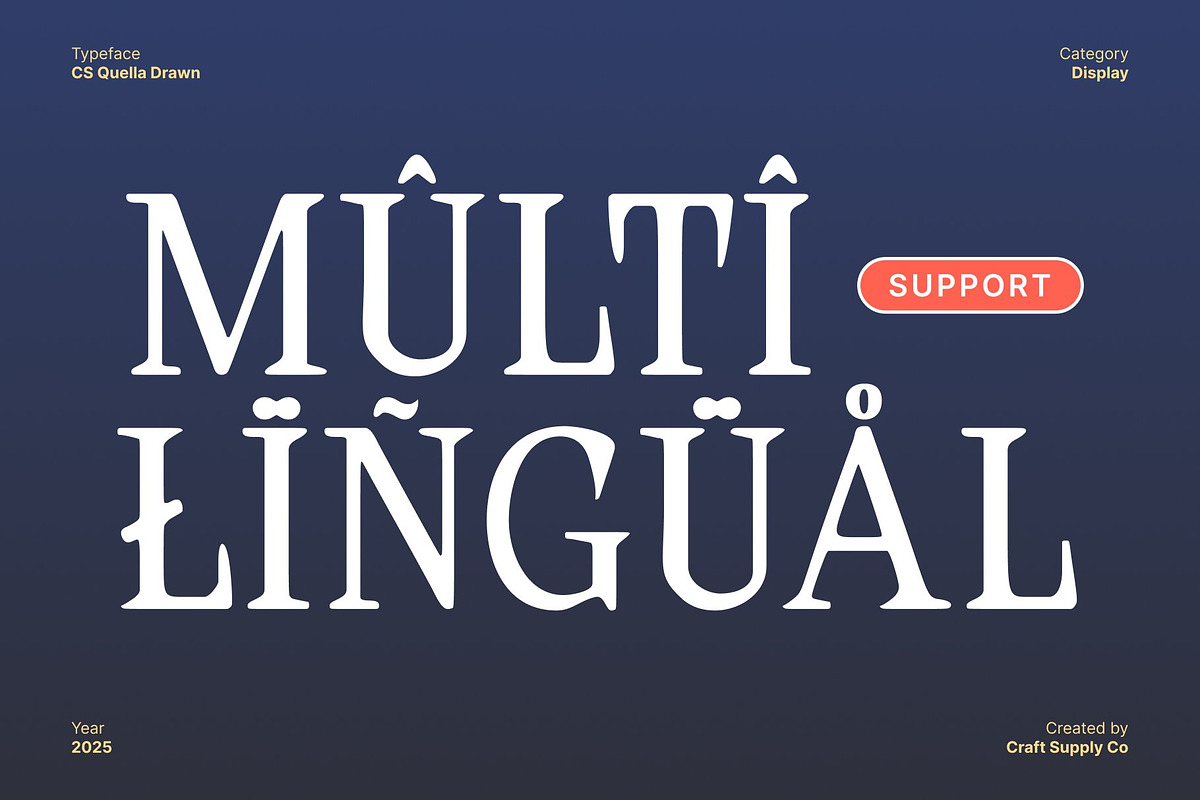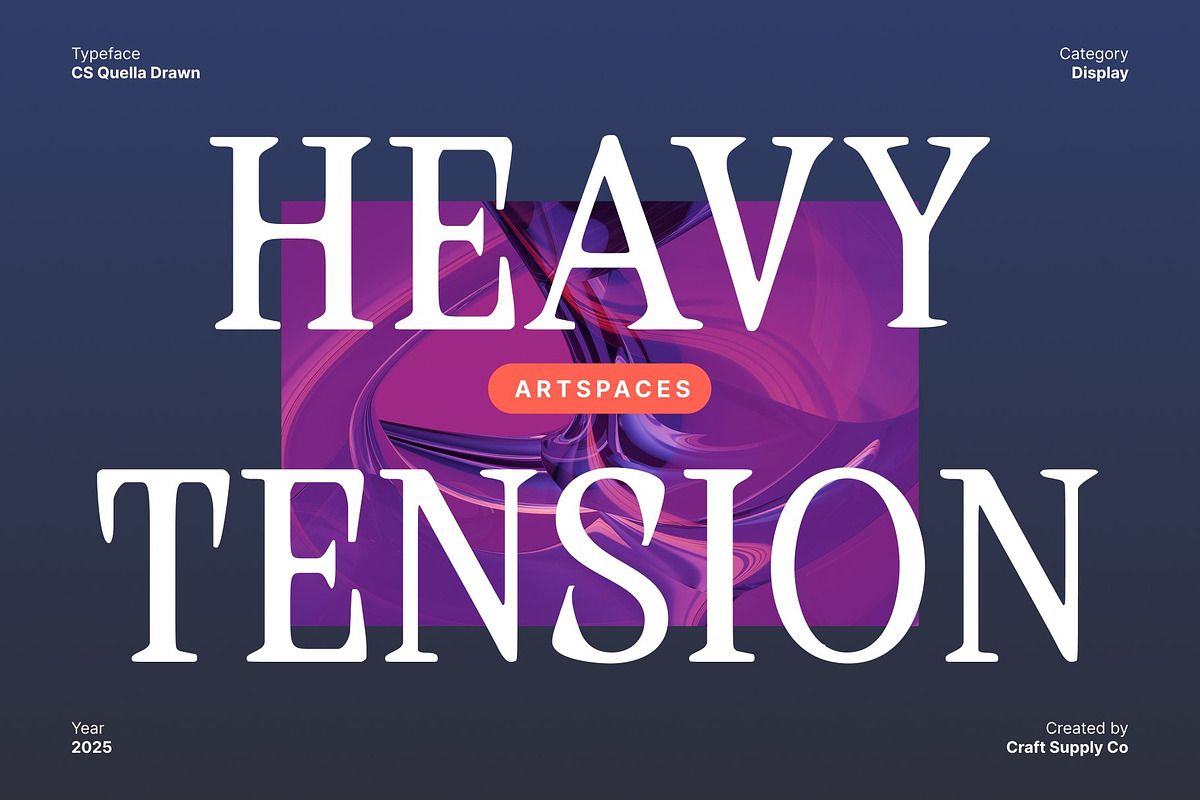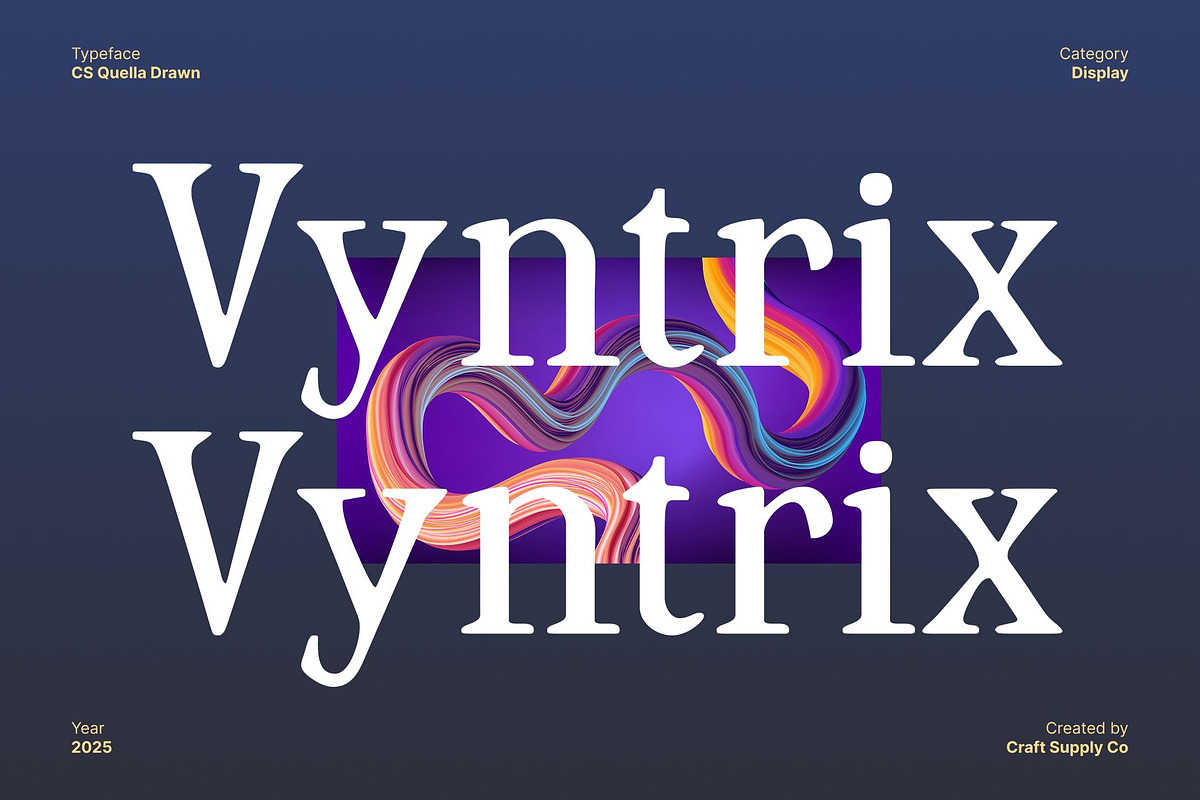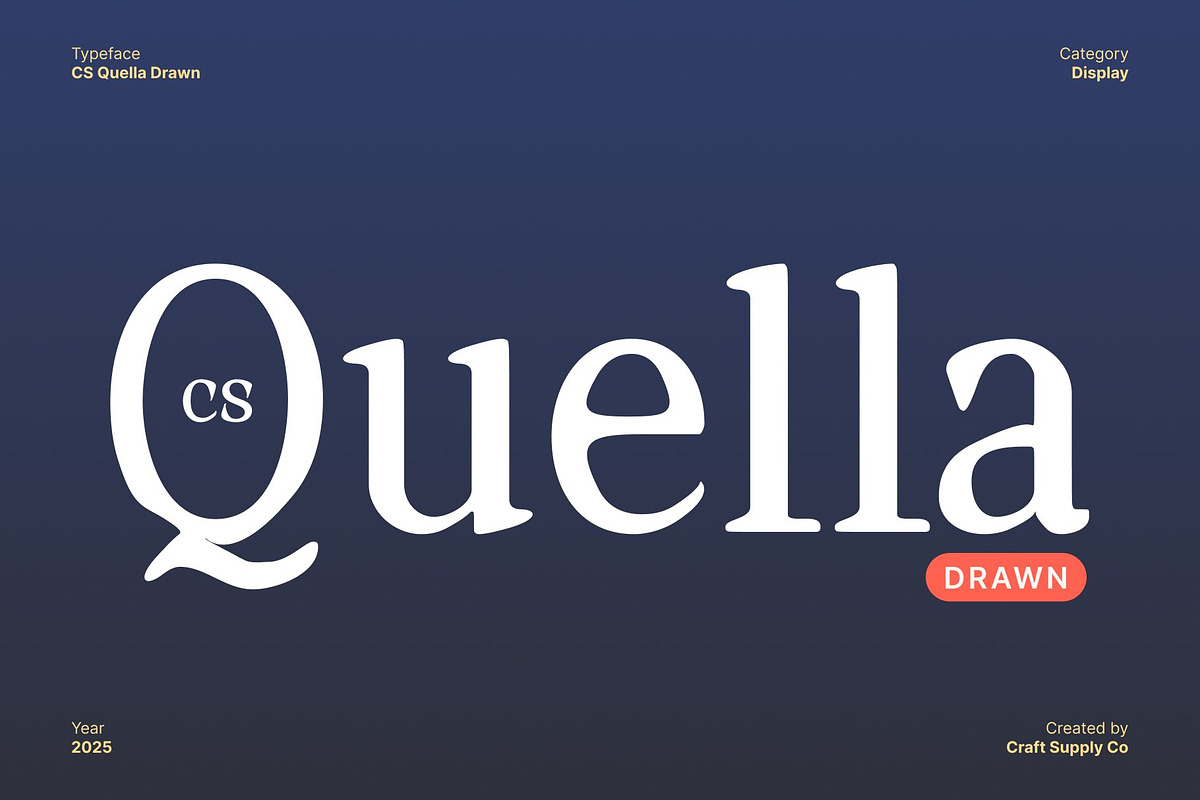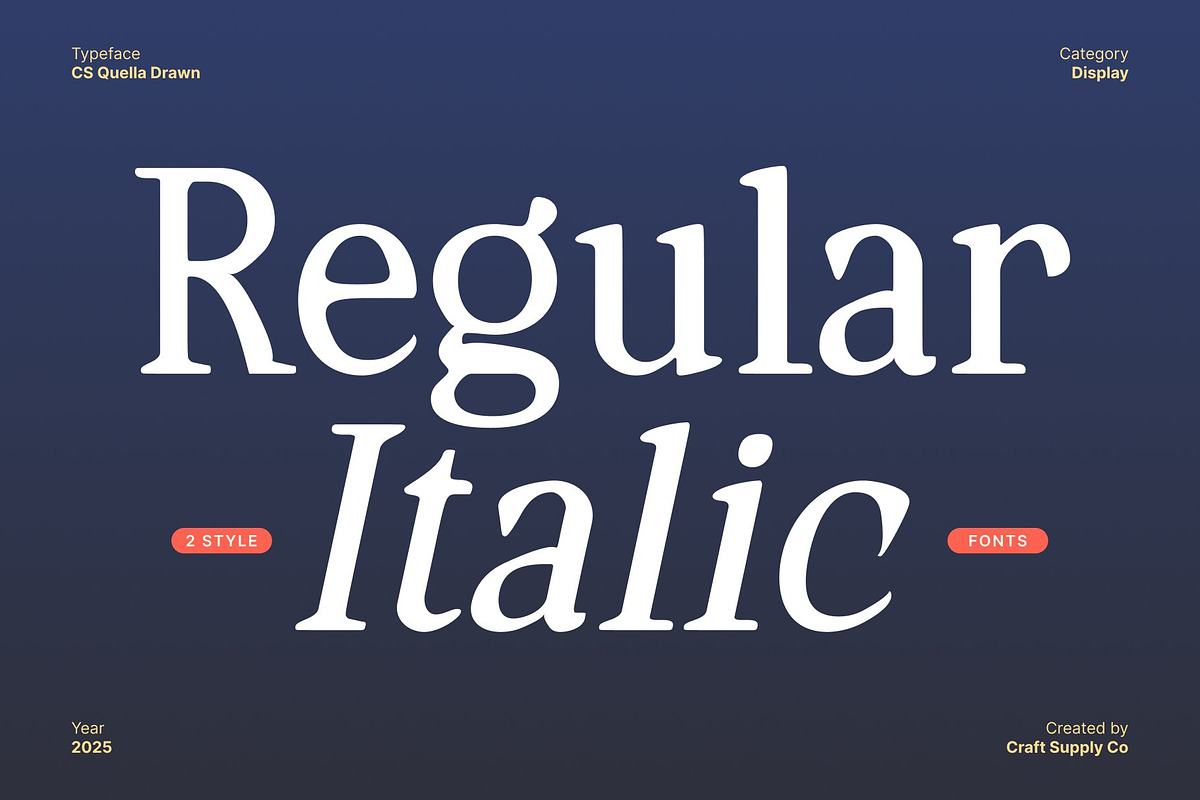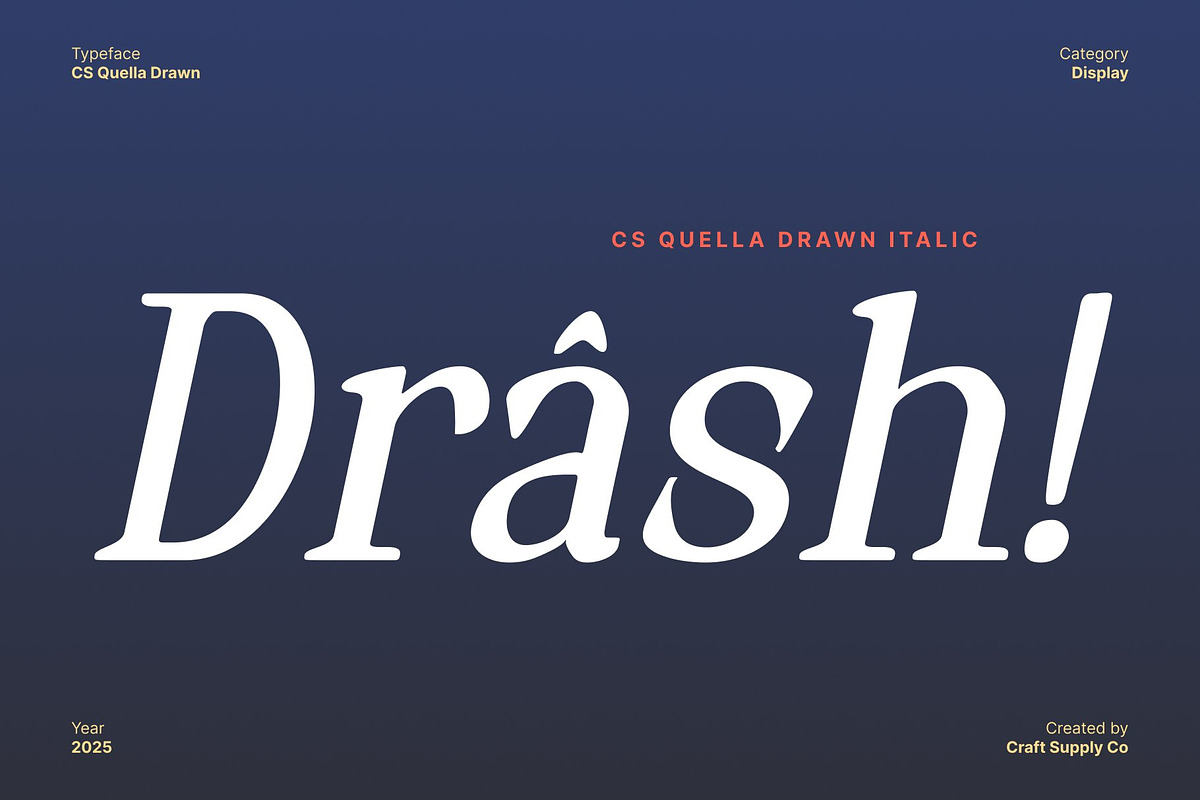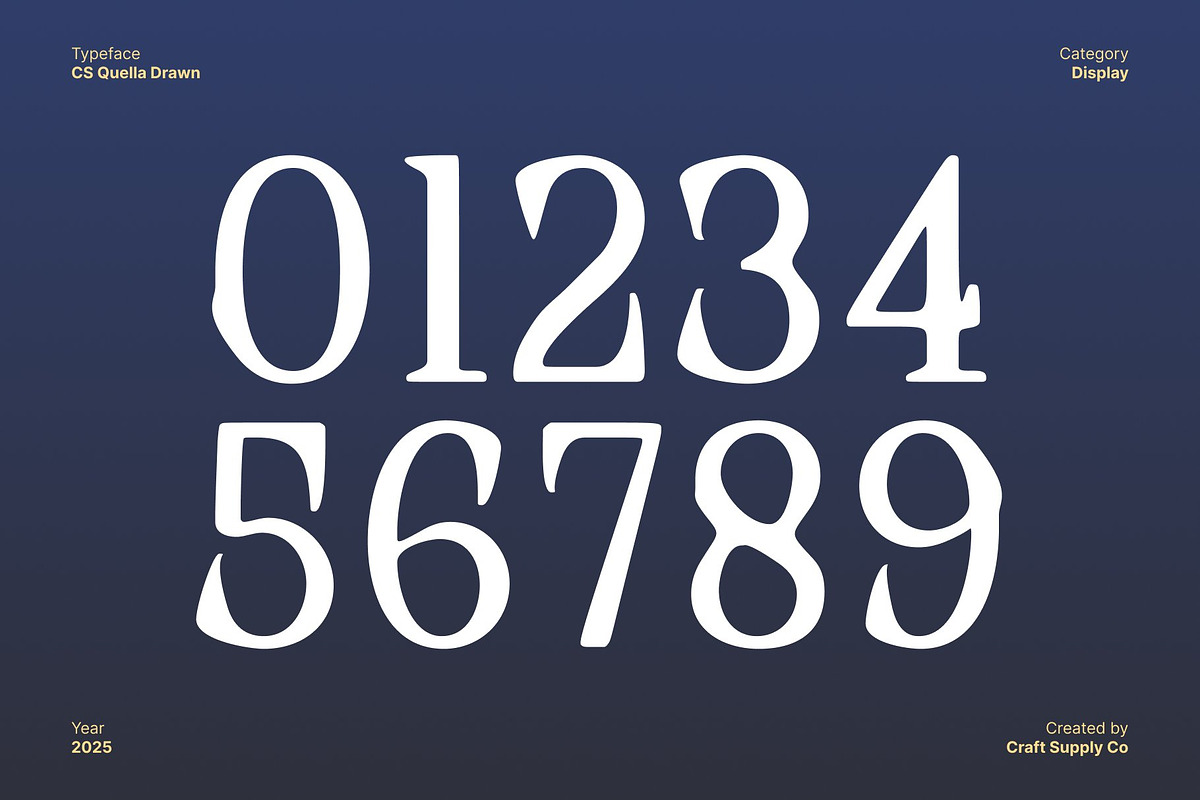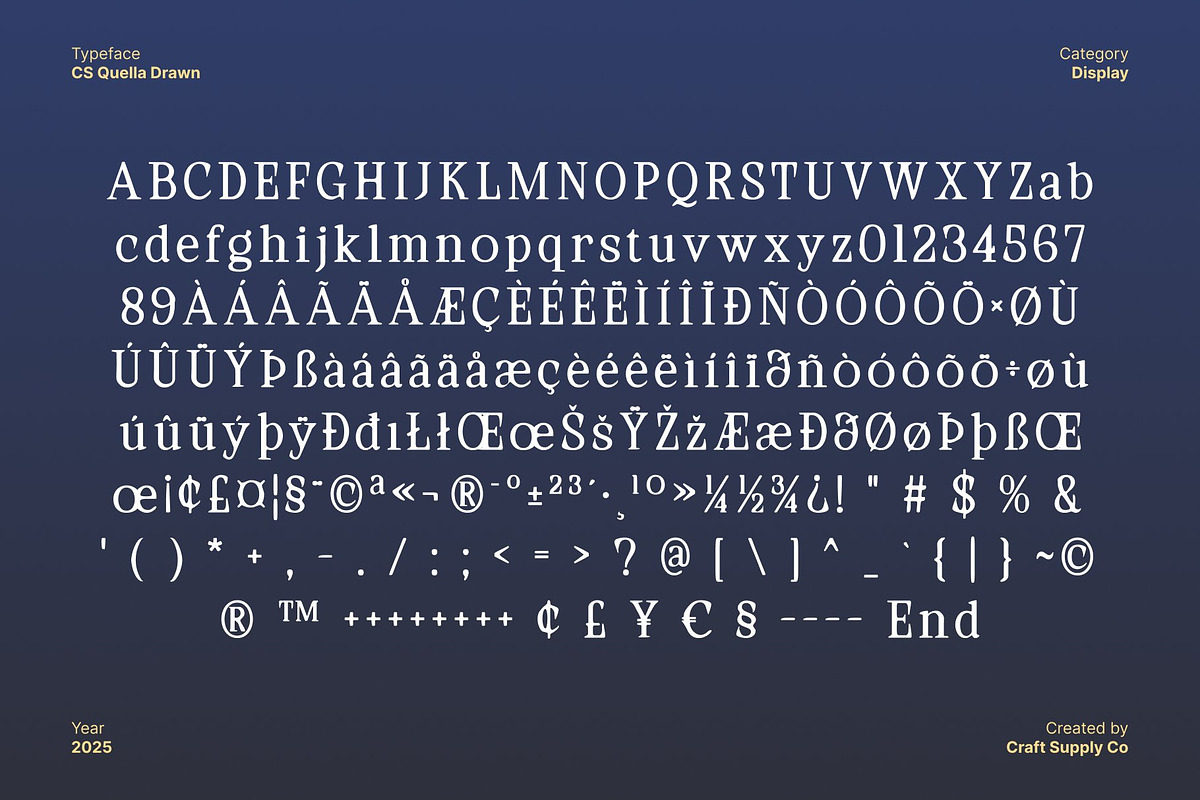
CS Quella Drawn
CS Quella Drawn – Elegant Serif Font with Artistic Drawn Texture
Elegant, Relaxed Letterforms for Calm and Beauty This elegant serif font features gracefully balanced shapes that convey sophistication and charm. Its soft curves and refined proportions create a visually pleasing, relaxed aesthetic, making it perfect for designs that emphasize fun, calm, and beauty.
Drawn Effect for Artistic, Handcrafted Texture The drawn effect adds an organic, handcrafted feel to each character, enhancing its artistic quality. This subtle texture gives the font a warm, approachable personality, transforming elegant letterforms into visually engaging and expressive typography.
Perfect for Relaxed, Artistic, and Fun Designs Ideal for lifestyle branding, creative posters, greeting cards, editorial layouts, or any project that seeks a soft and artistic look, this font combines elegance with personality. Its handcrafted texture ensures designs feel unique, inviting, and visually captivating.
Soft, Artistic, and Visually Expressive By merging refined serif forms with drawn texture, this font delivers a typeface that is both elegant and playful. It’s the perfect choice for designers seeking a sophisticated yet relaxed display font with a handcrafted, artistic touch.